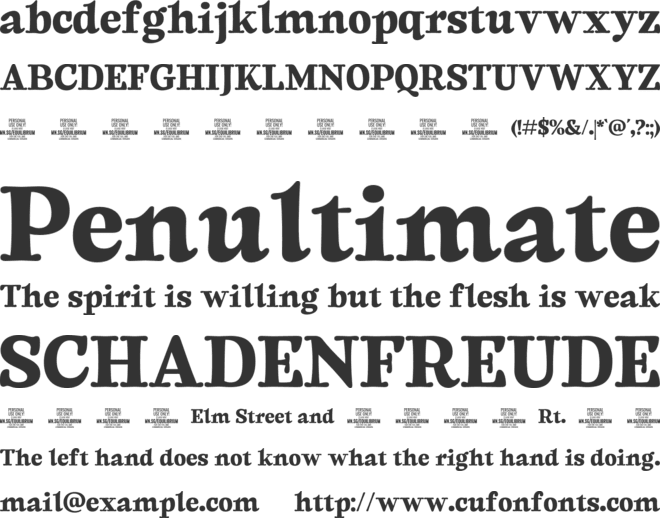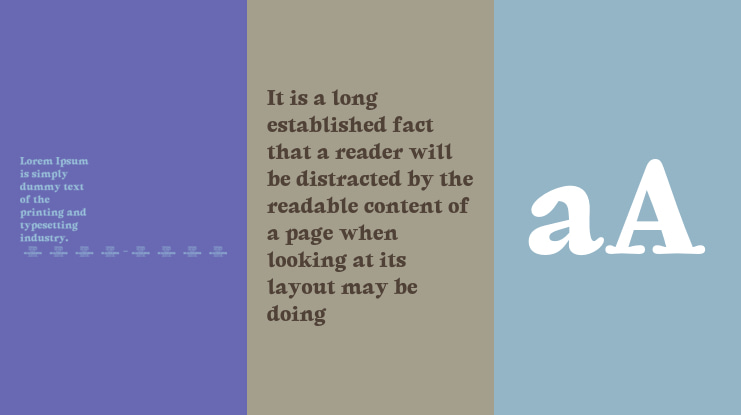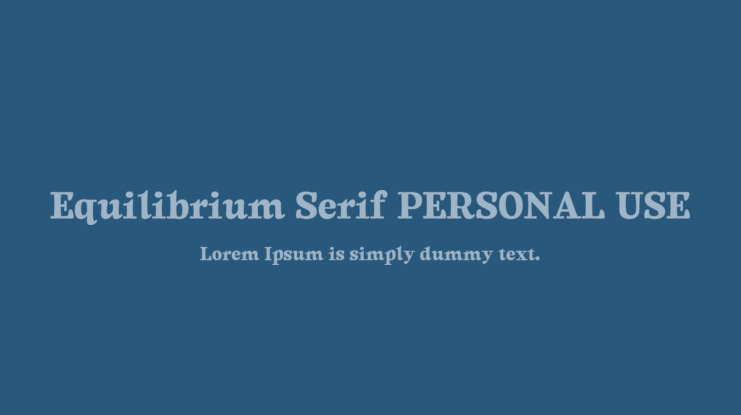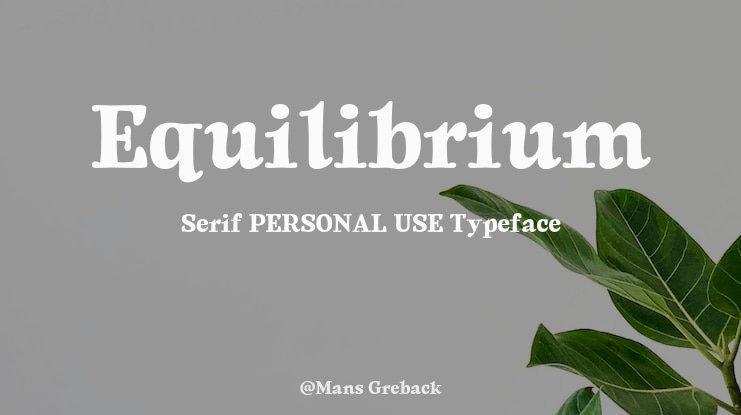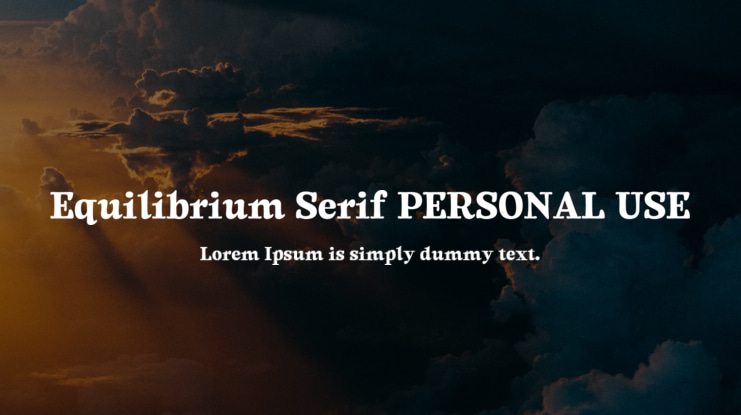
Equilibrium Serif PERSONAL USE Font Family
NOTE: This font is for PERSONAL USE ONLY! To purchase a commercial license, visit: http://mn.sg/equilibrium-serif. Equilibrium Serif's neo-classic design evokes timelessness, while the glow of its smooth curves adds a warm, inviting touch. Equilibrium Serif is versatile, lending itself to both formal and modern contexts, making it perfect for projects that require a refined charm. For questions, please visit www.mn.sg/faq.